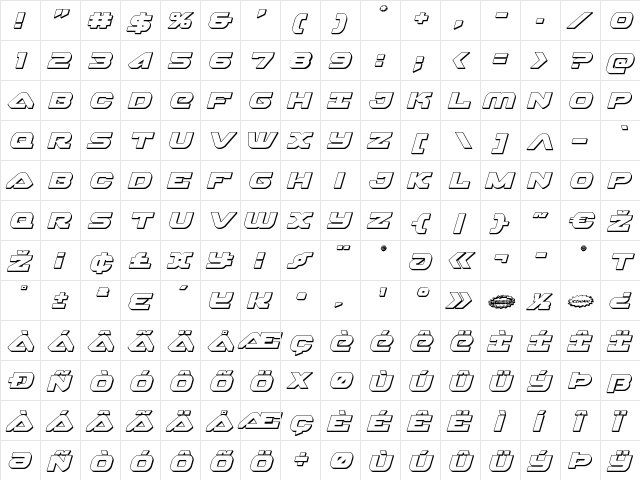
Skyhawk 3D Italic Italic
Design Context for Skyhawk 3D Italic Typeface
Skyhawk 3D Italic is a composed and adaptable typeface that performs quietly and consistently across a wide range of design contexts. The slanted form adds forward momentum and visual energy.
Pro Tip: Use Skyhawk 3D Italic for emphasis, pull quotes, and subheadings where its slanted energy can add rhythm to the layout.